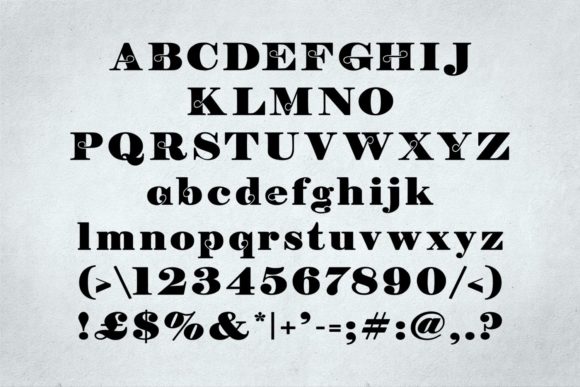
Feba Font
Introducing Feba Font, a decorative masterpiece that will add a touch of individuality to your creative projects!
Feba is more than just a font; it's an artistic expression, an invitation to explore the boundless realm of visual storytelling. With its intricate details and captivating curves, Feba will transform your designs into captivating masterpieces.
Imagine the impact of Feba's unique characters, each meticulously crafted to evoke emotion and create a lasting impression. Whether you're designing logos, posters, invitations, or social media posts, Feba will elevate your work to a level of sophistication that commands attention.
Unleash your imagination and let Feba guide you through a journey of creativity, where boundaries dissolve and possibilities flourish. Embrace the experimental while relishing the familiar, as Feba seamlessly blends the old and the new, the traditional and the modern.